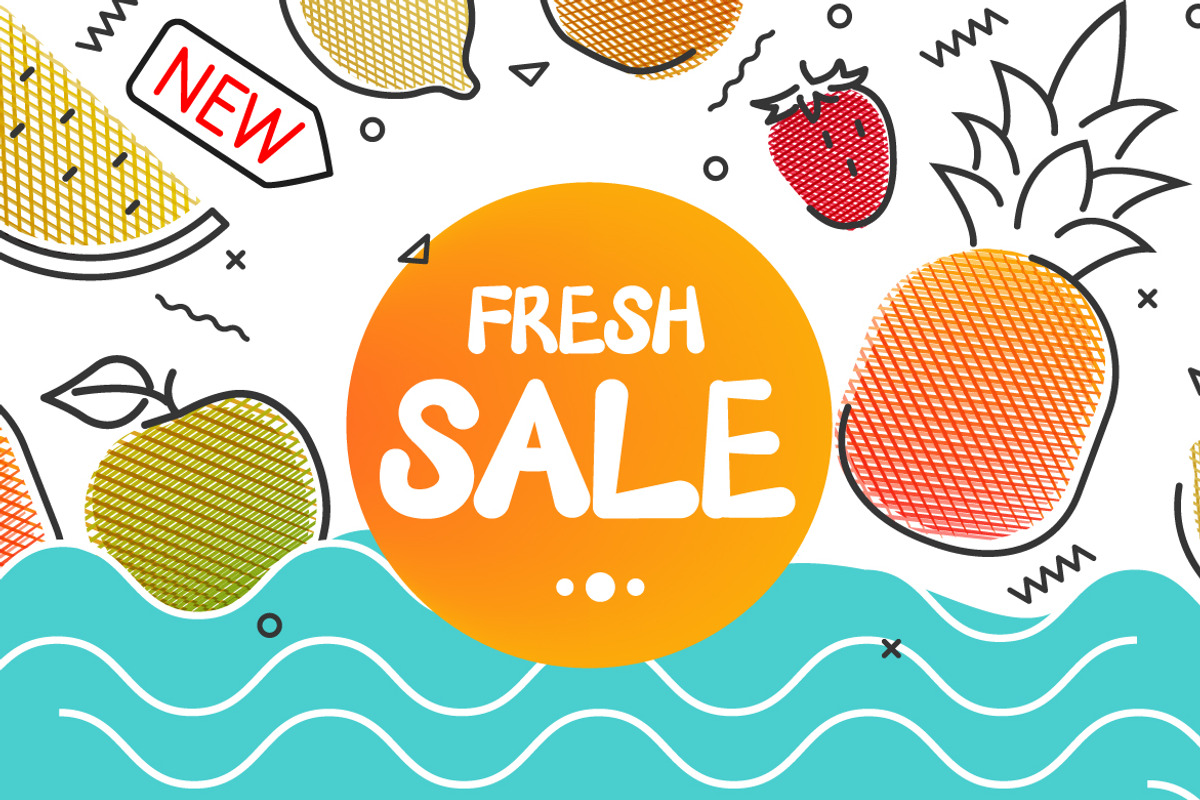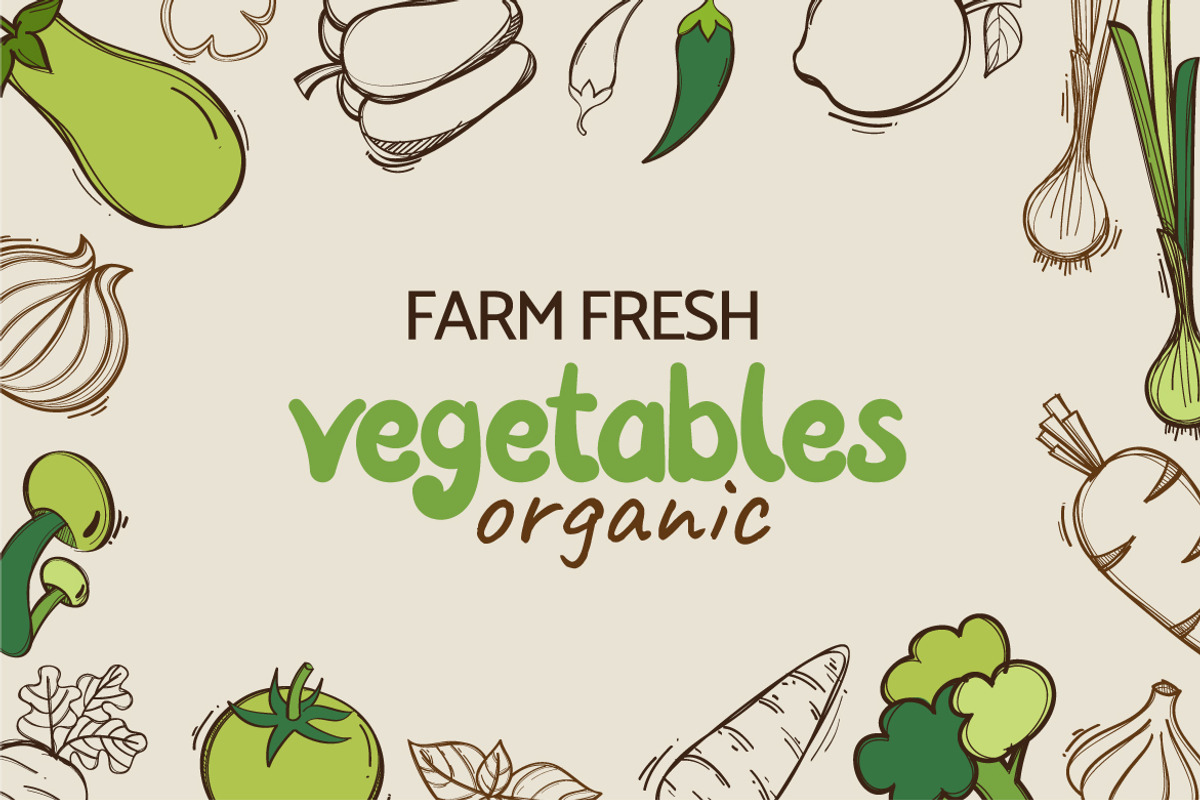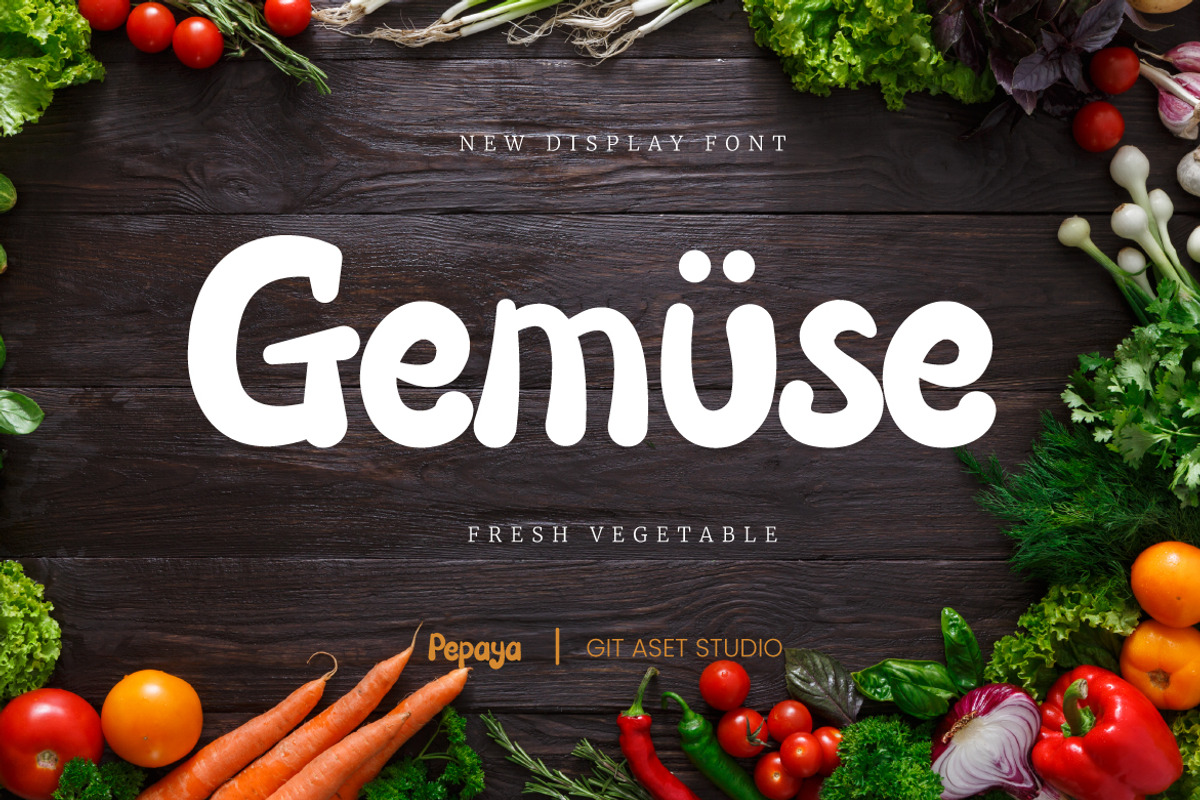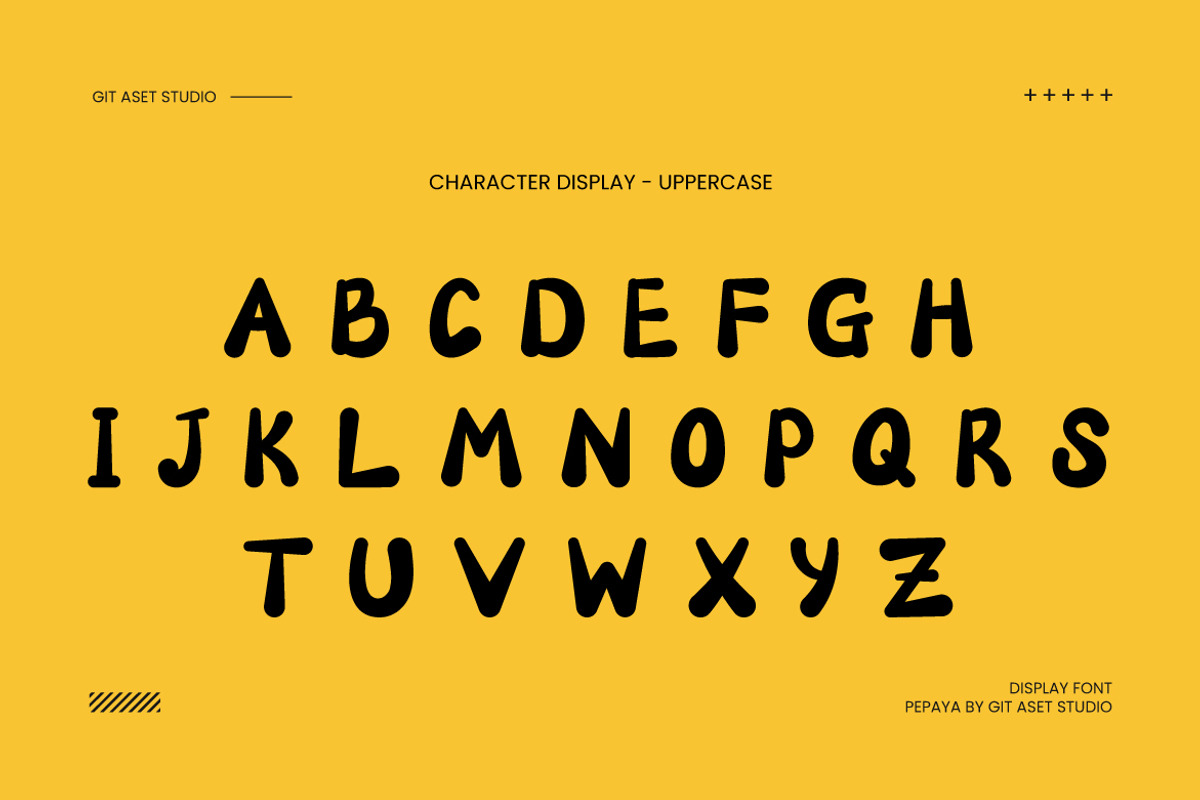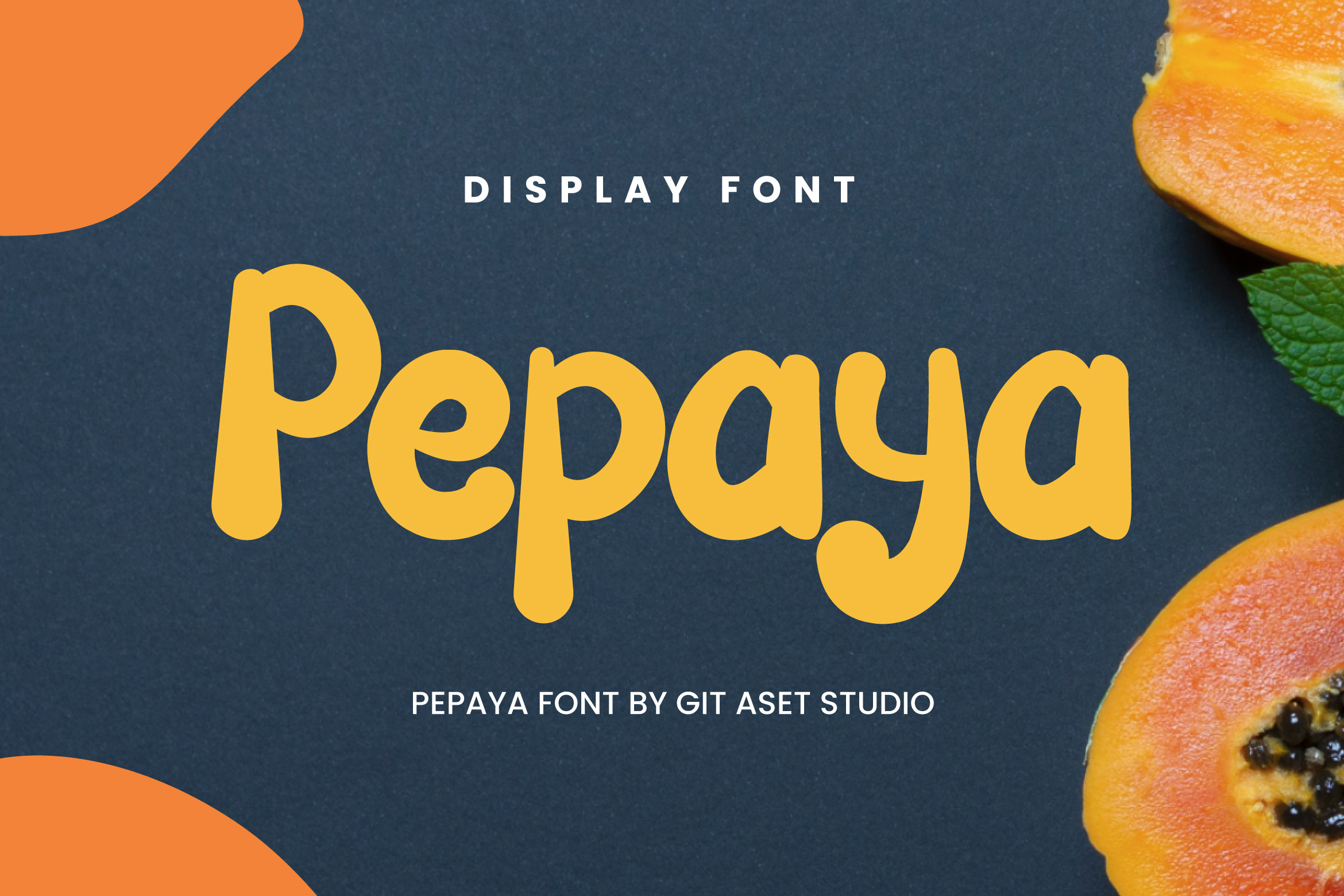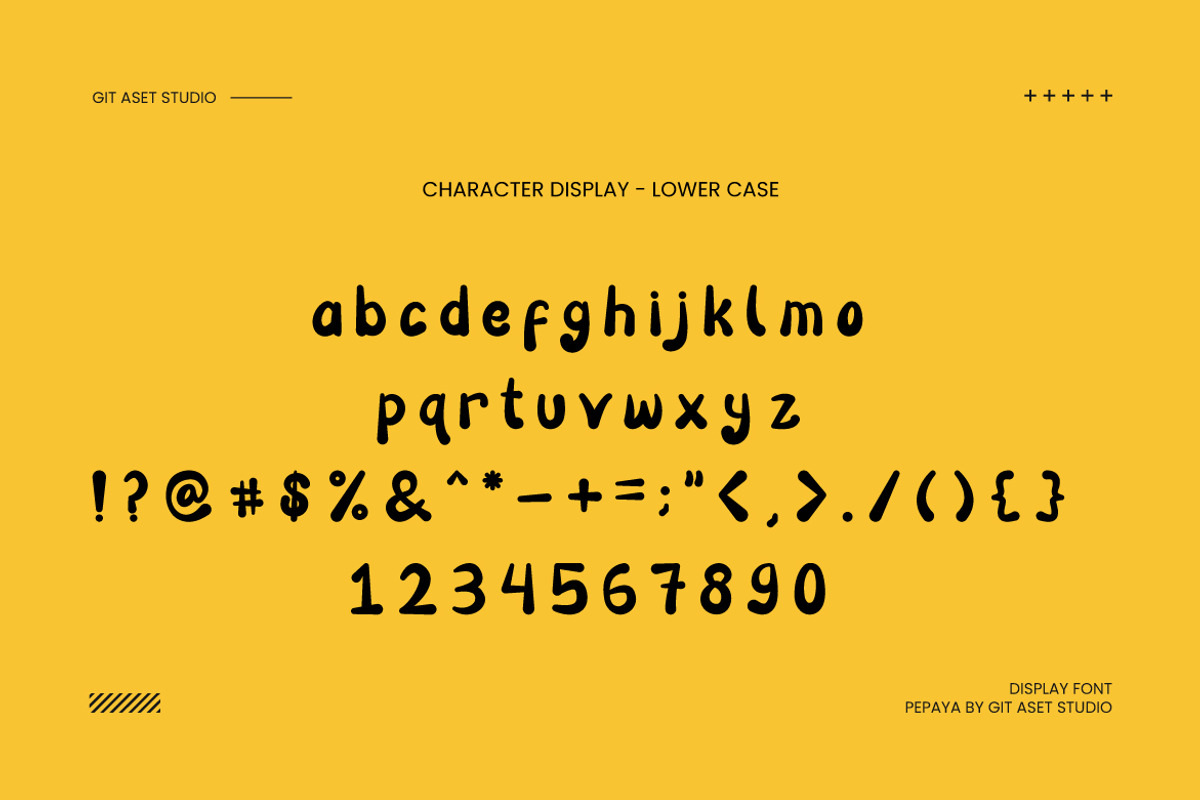
Pepaya - Display Playful Font
Display Playful Font is a fun and vibrant font that is perfect for adding a touch of playfulness to your design projects. This font comes in both OTF and TTF file formats, making it accessible across various platforms and applications.
Its distinct style and playful nature make this font a valuable asset for various design projects. You can utilize this font to create eye-catching posters, vibrant social media graphics, lively website headers, engaging illustrations, and playful typography in branding materials.